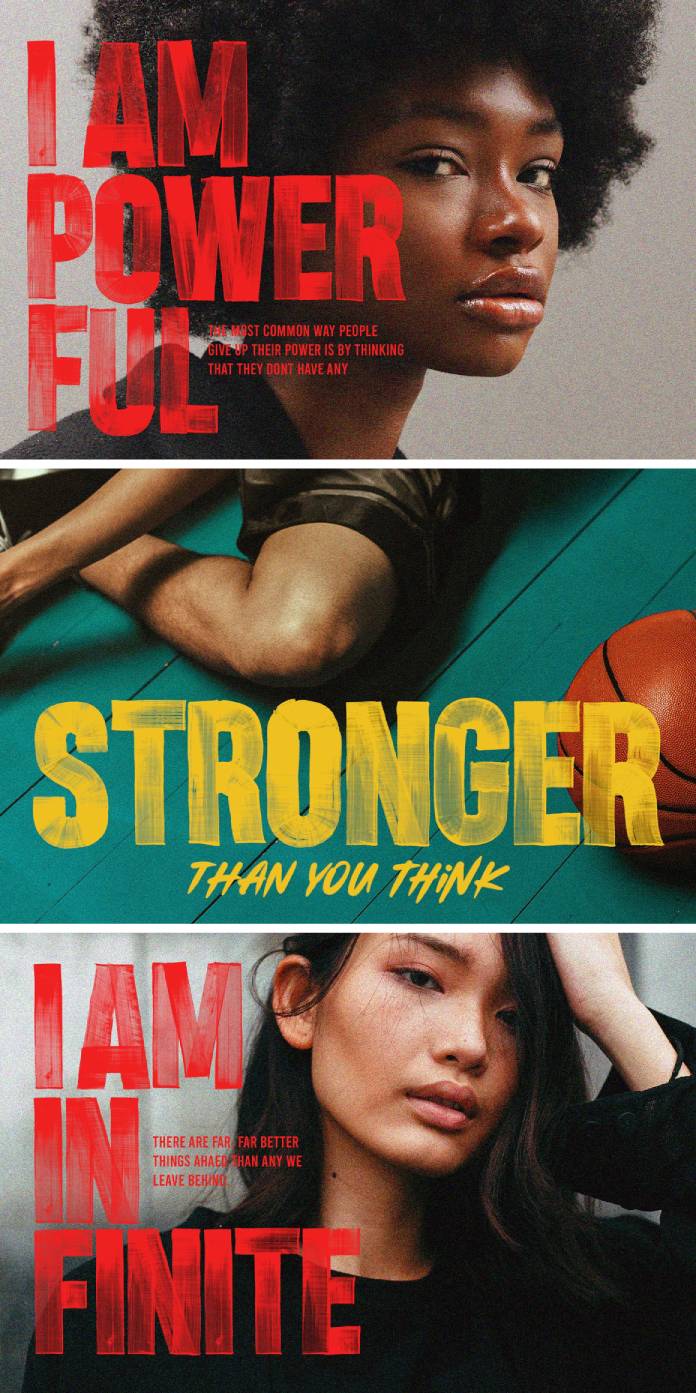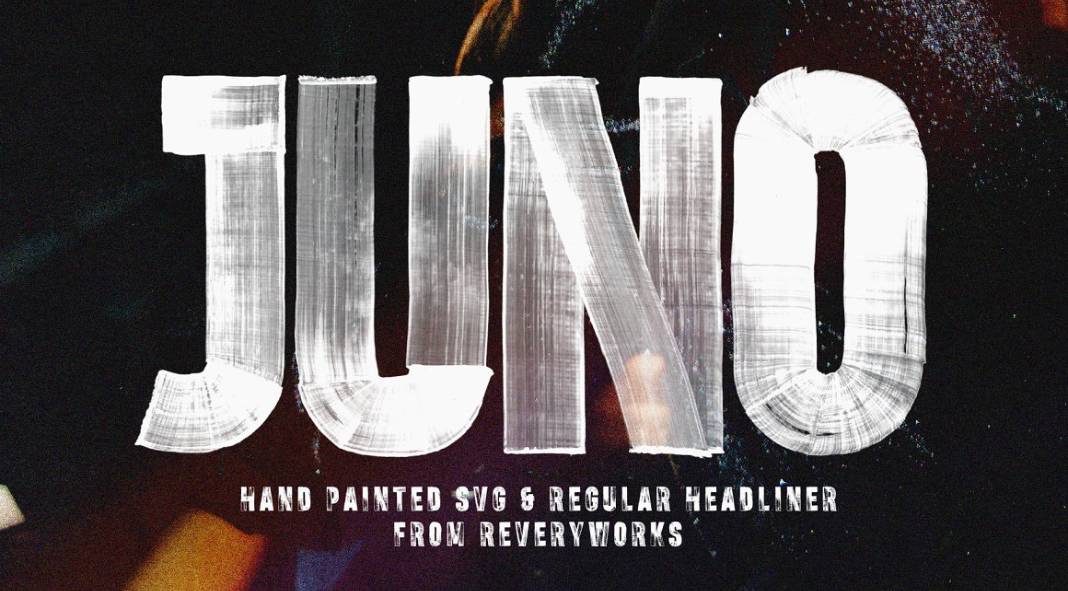
Check out Juno, a bold condensed hand-painted font for striking headlines.
ReveryWorks has recently crafted the perfect typeface for your headlines, JUNO. This striking condensed hand-painted font will give each of your characters a unique texture and create those alluring drag marks that you love. Show how bold and powerful you are with this one-of-a-kind font! Juno comes with a regular and SVG version.
For international users, this font offers extraordinary multilingual support. The Juno font offers characters such as À Ä Å Ã Æ Ç ÉÊÈËÍÎÌ, as well as many other unique characters like the innovative ŠÛߟ. It’s noteworthy that SVG fonts are a fresh development and can only be used by Photoshop CC 2017(or newer) or Illustrator CC 2018 (or newer). On the other hand, the regular font version is accepted in most applications.